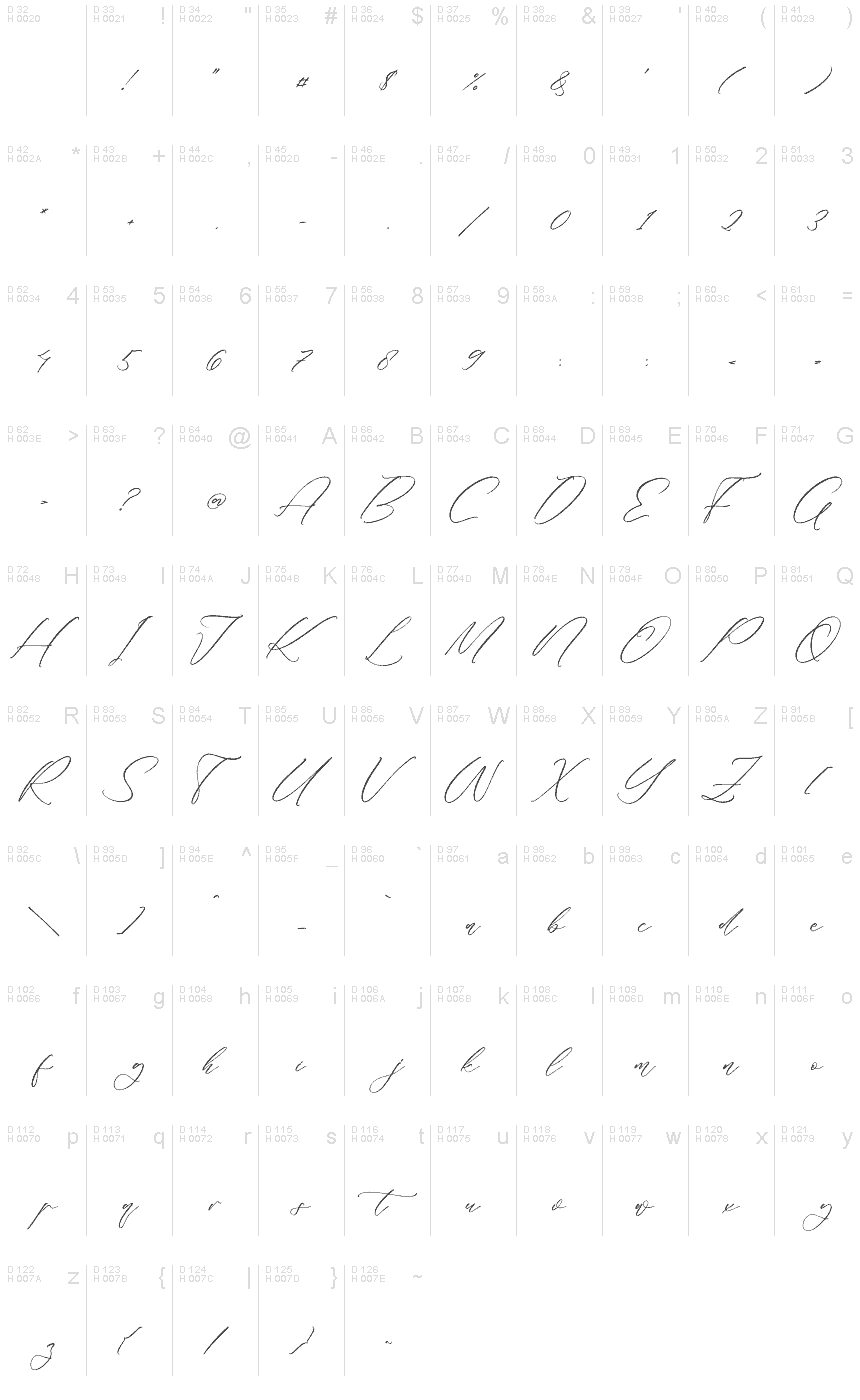
Rilenheart Scottibela
Rilenheart Scottibela font by Storytype Studio is a free handwritten font with elegant, flowing, and sophisticated designs. Its modern script style makes for an expressive typeface that looks incredibly close to human handwriting. This light font features exquisite curves that will adorn your cards, home décor items, and other projects.
Rilenheart Scottibela can be used when branding coffee shops or small businesses, or with signatures to give them a sleek appearance. It is also useful for social media posts, professional presentation slideshows and business reports.